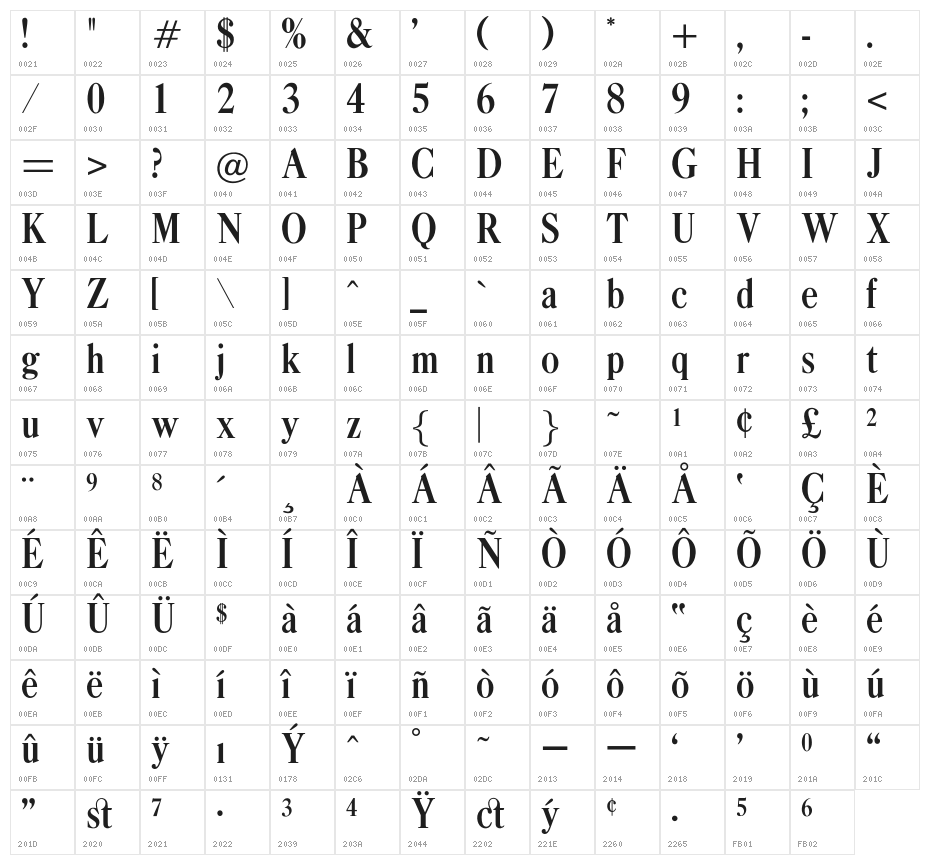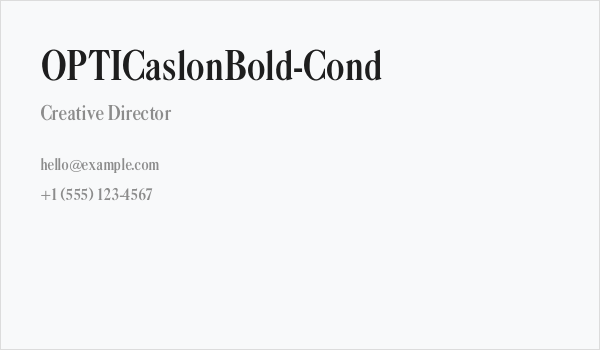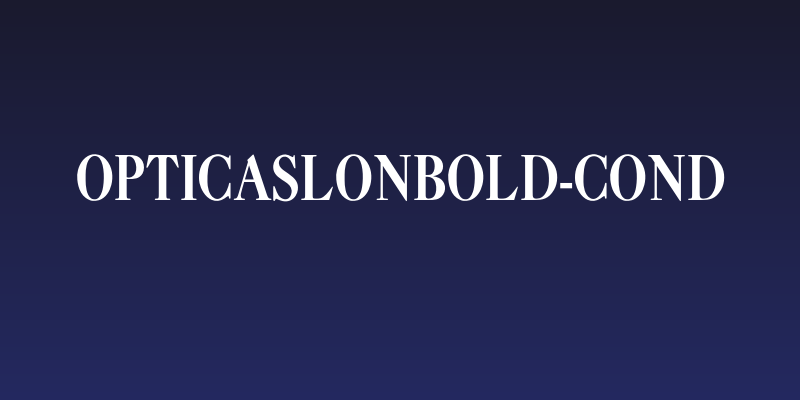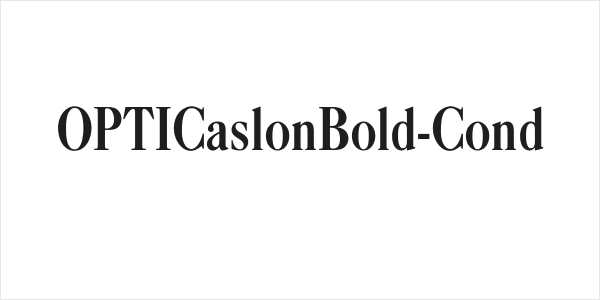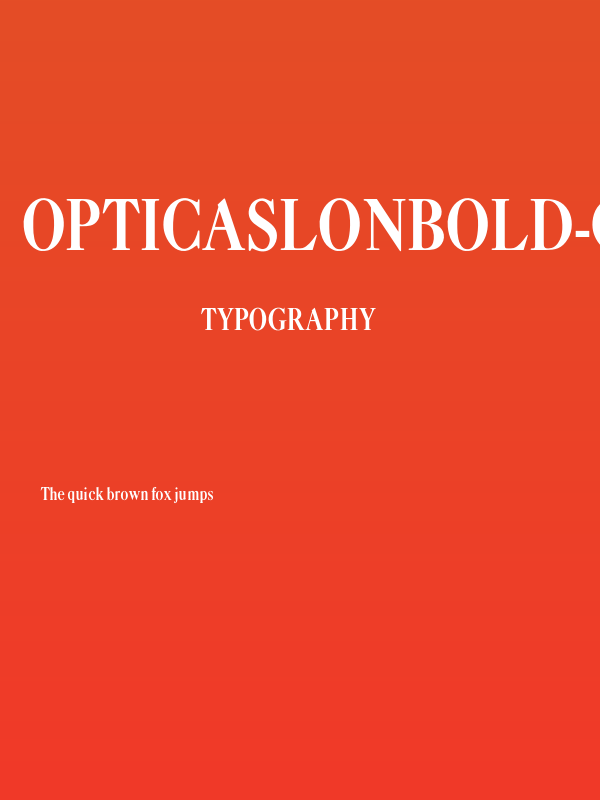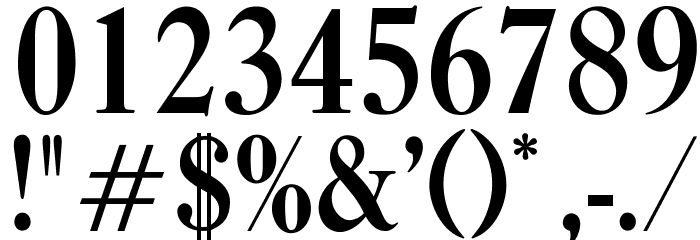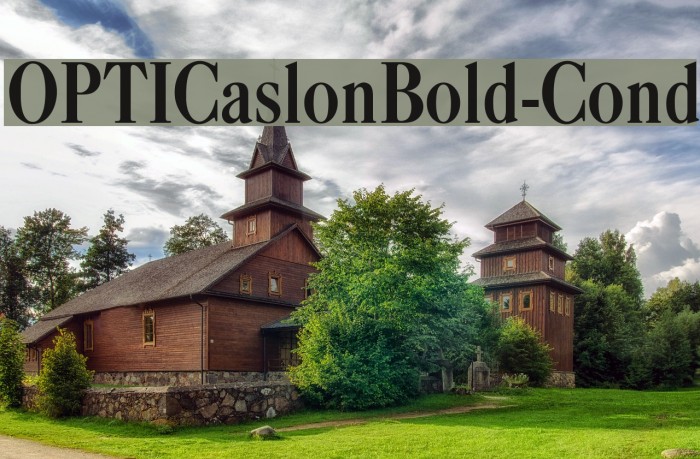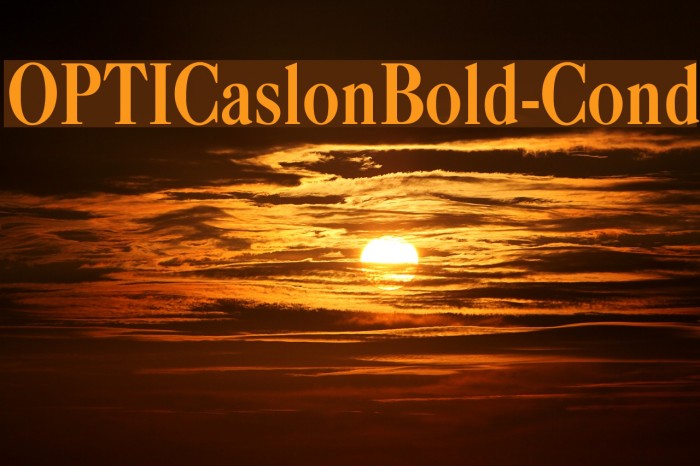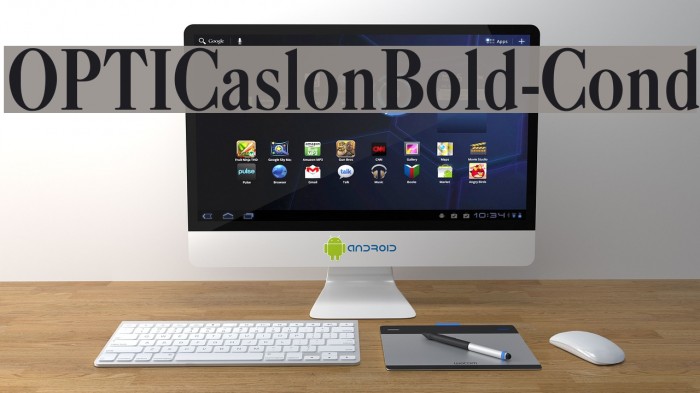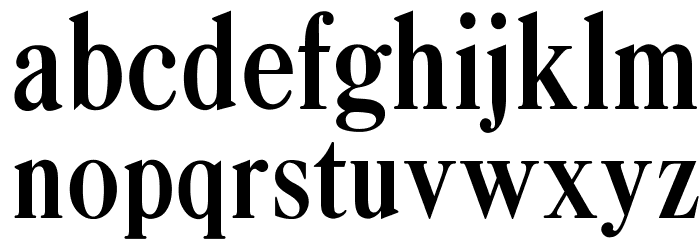
OPTICaslonBold-Cond Font
OPTICaslonBold-Cond Description
This font exudes a classic and timeless elegance, characterized by its bold and strong serif features. The strokes are thick and well-defined, providing a sense of authority and sophistication. The uppercase letters are stately and commanding, while the lowercase letters maintain a graceful balance. The numerals are clear and prominent, ensuring readability. Special characters are crafted with attention to detail, adding to the font's versatility. This typeface is ideal for projects that require a touch of tradition and formality, yet it remains adaptable to modern design needs.
| Use Case | Headlines, Logos, Editorial design |
| Proposed Projects | Ideal for book covers, formal invitations, branding, and editorial design. |